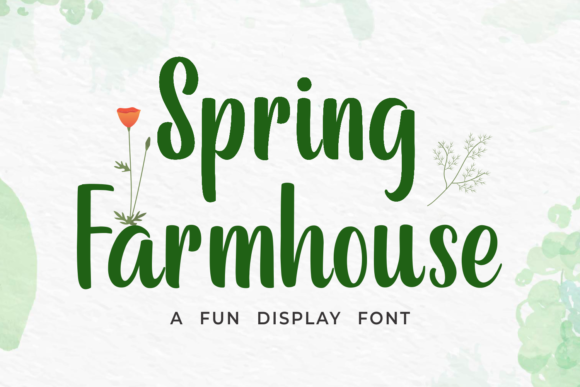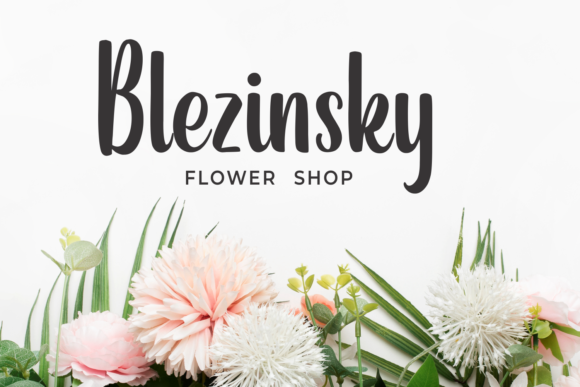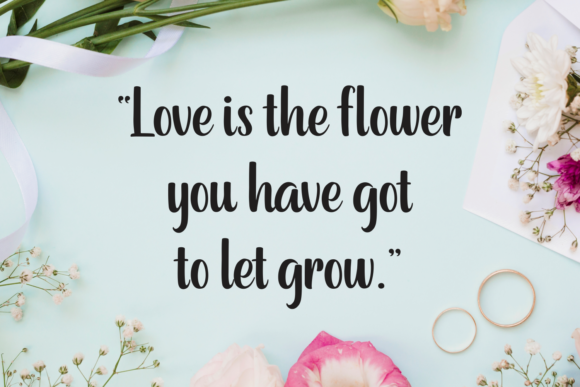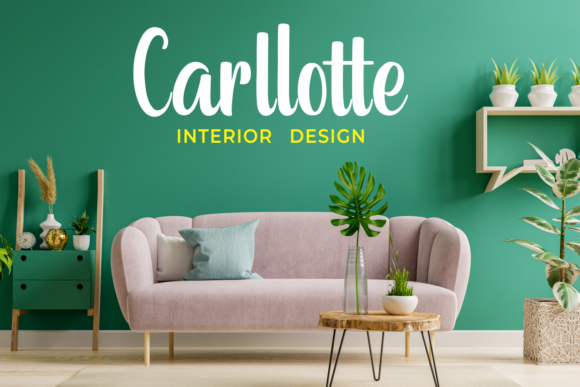
Spring Farmhouse Font
About the Spring Farmhouse Font
Discover the charm of Spring Farmhouse Font. This font is a perfect blend of modern aesthetics and classic appeal. Spring Farmhouse is a cute, friendly and fun script font.
This font has a lovely touch of character, perfect for a wide variety of designs.
Add to your most creative ideas and create stunning designs with it!